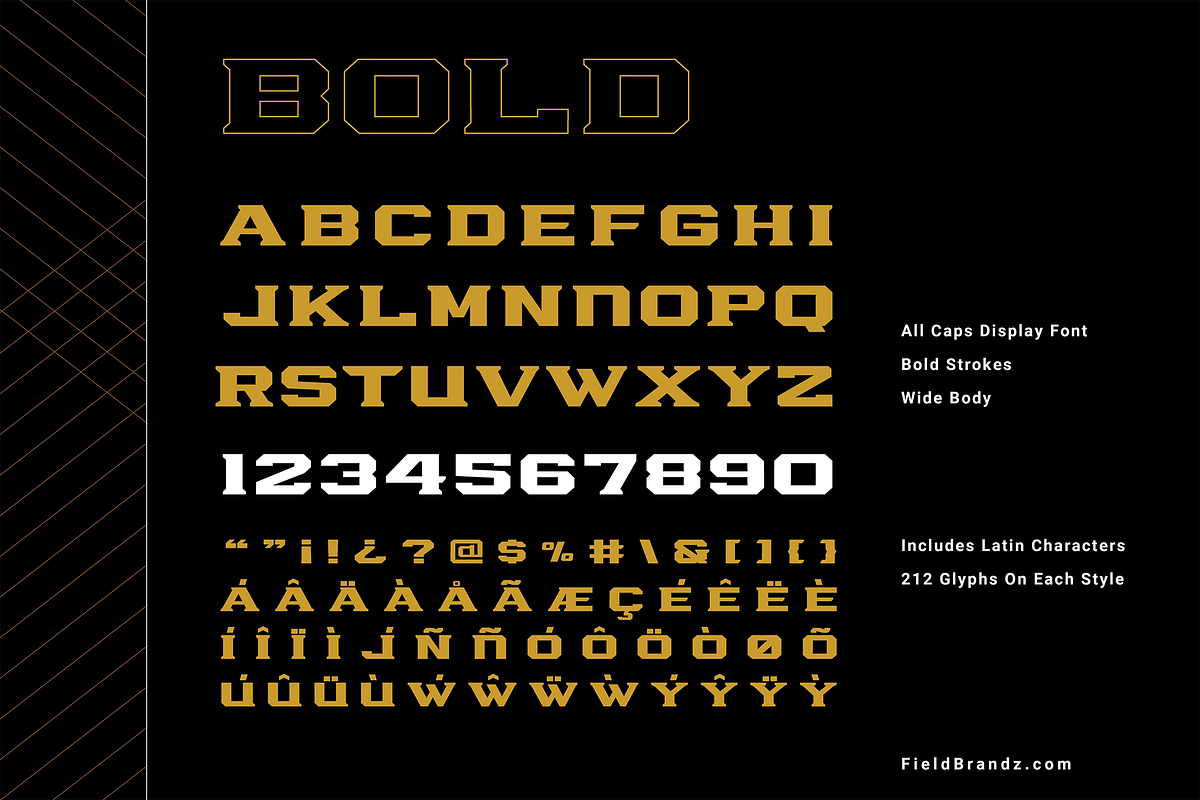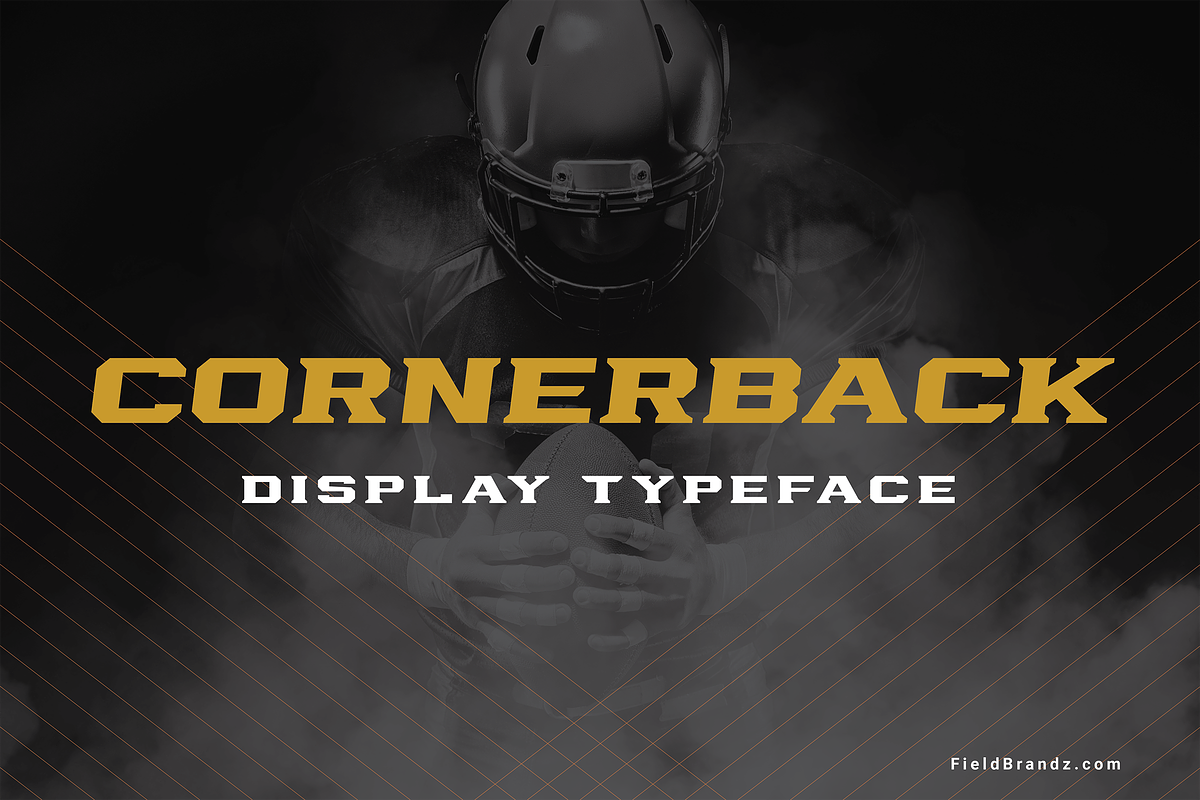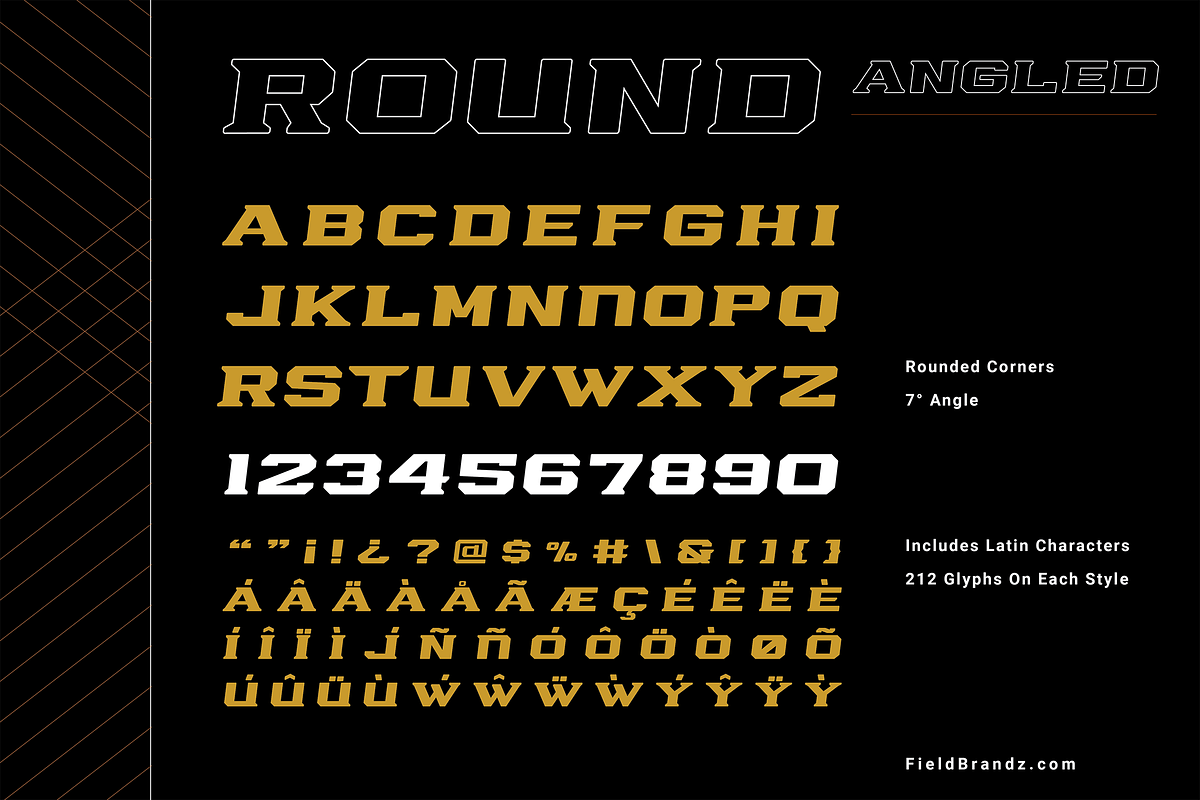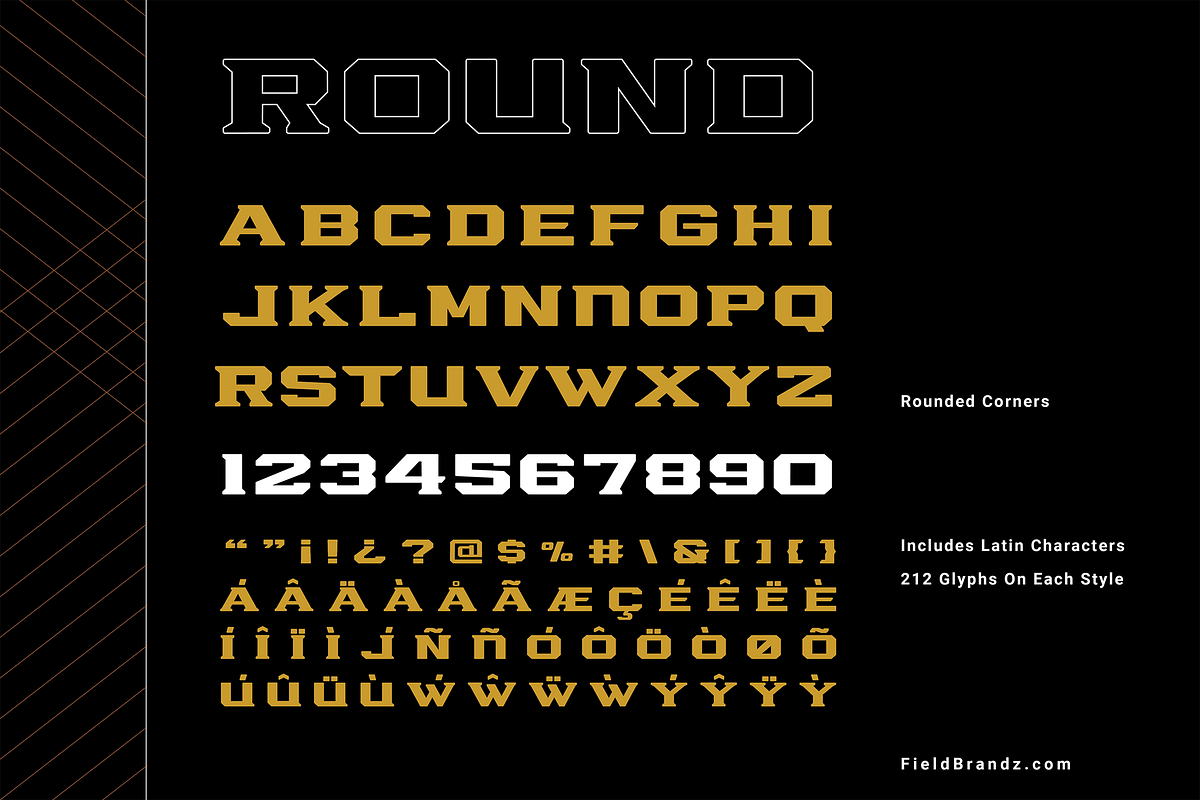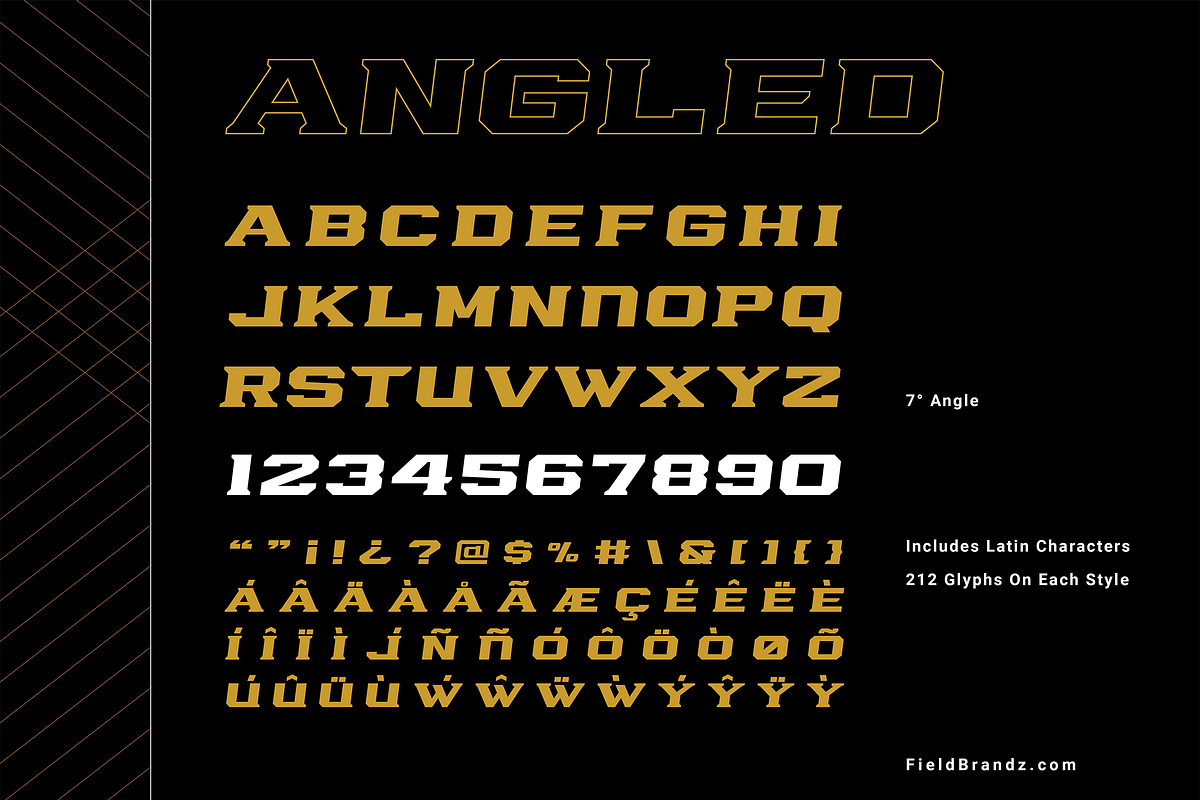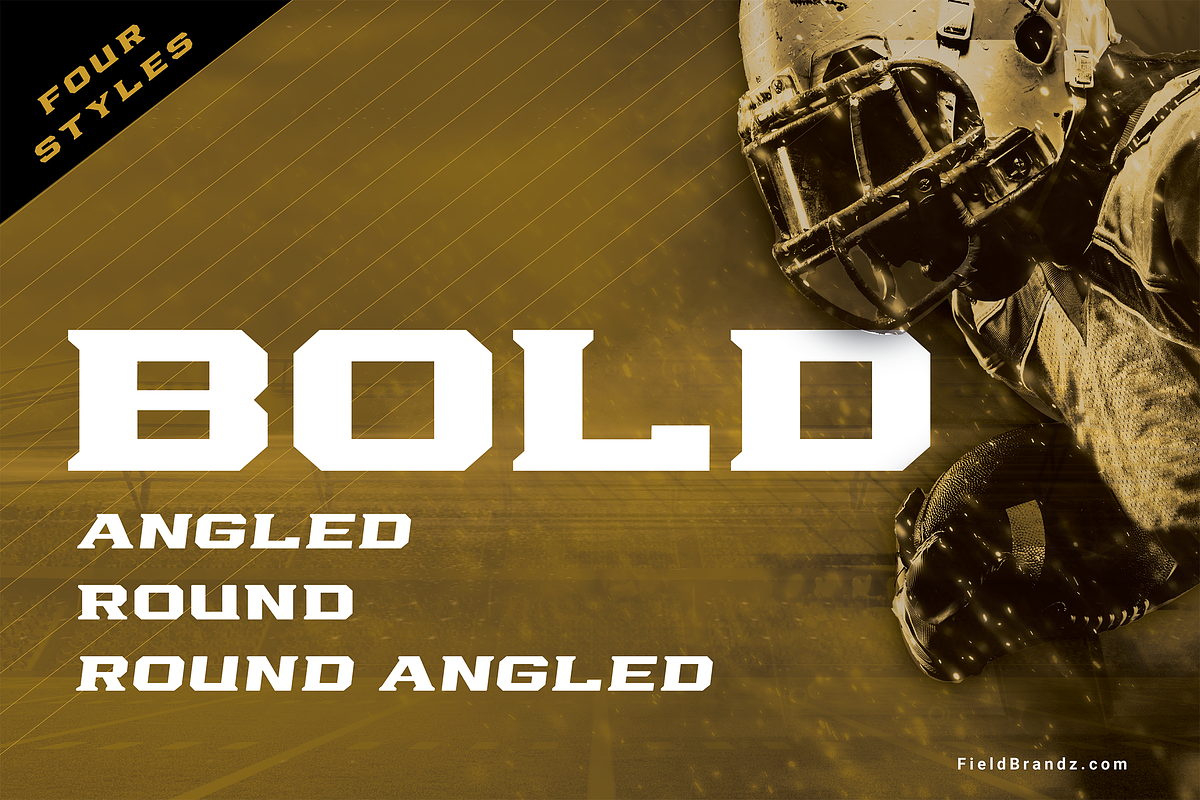
Cornerback Display Typeface
Cornerback is a strong and bold athletic display typeface. With it's tight kerning and bold strokes this typeface was created to make your designs stand out.